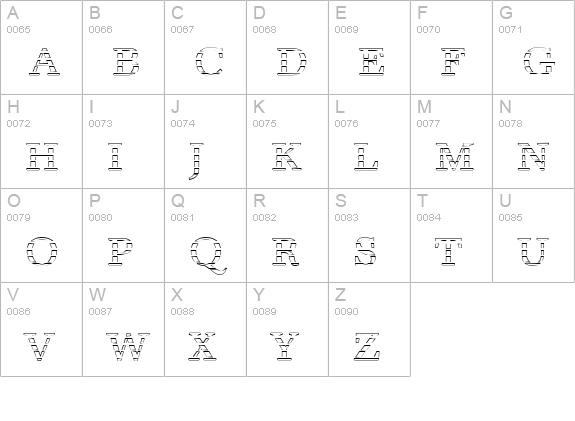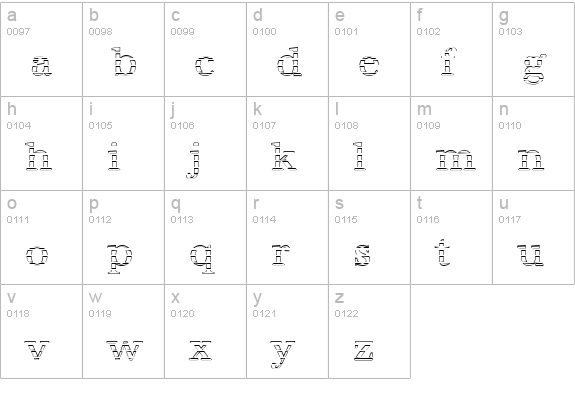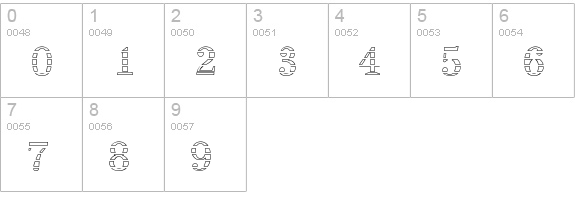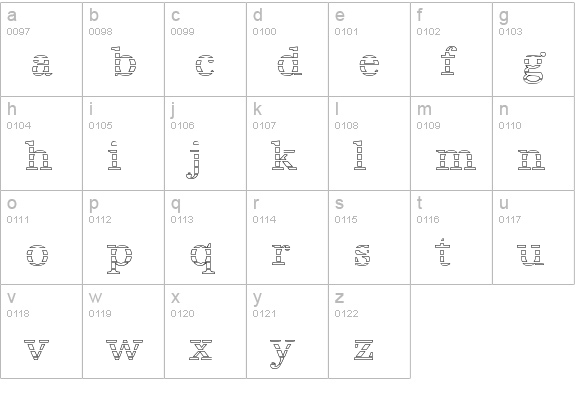
AntiquaGo-Regular is the standard, neutral variant in the AntiquaGo typeface family \xE2\x80\x94 well suited to general body text, paragraphs, and standard typographic work.
AntiquaGo-Regular is a classic and elegant font that exudes a timeless charm and sophistication. Its clean lines and balanced proportions make it perfect for a wide range of design projects, from traditional to modern. This versatile typeface is ideal for creating beautiful typography for branding, editorial design, invitations, and more. What makes AntiquaGo-Regular even more appealing is that it is available for free download at FontsMarket.com. This means that you can easily access this high-quality font and use it in your projects without any cost. Don't miss out on the opportunity to enhance your designs with the timeless beauty of AntiquaGo-Regular. Download it today and elevate your typographic creations to the next level.